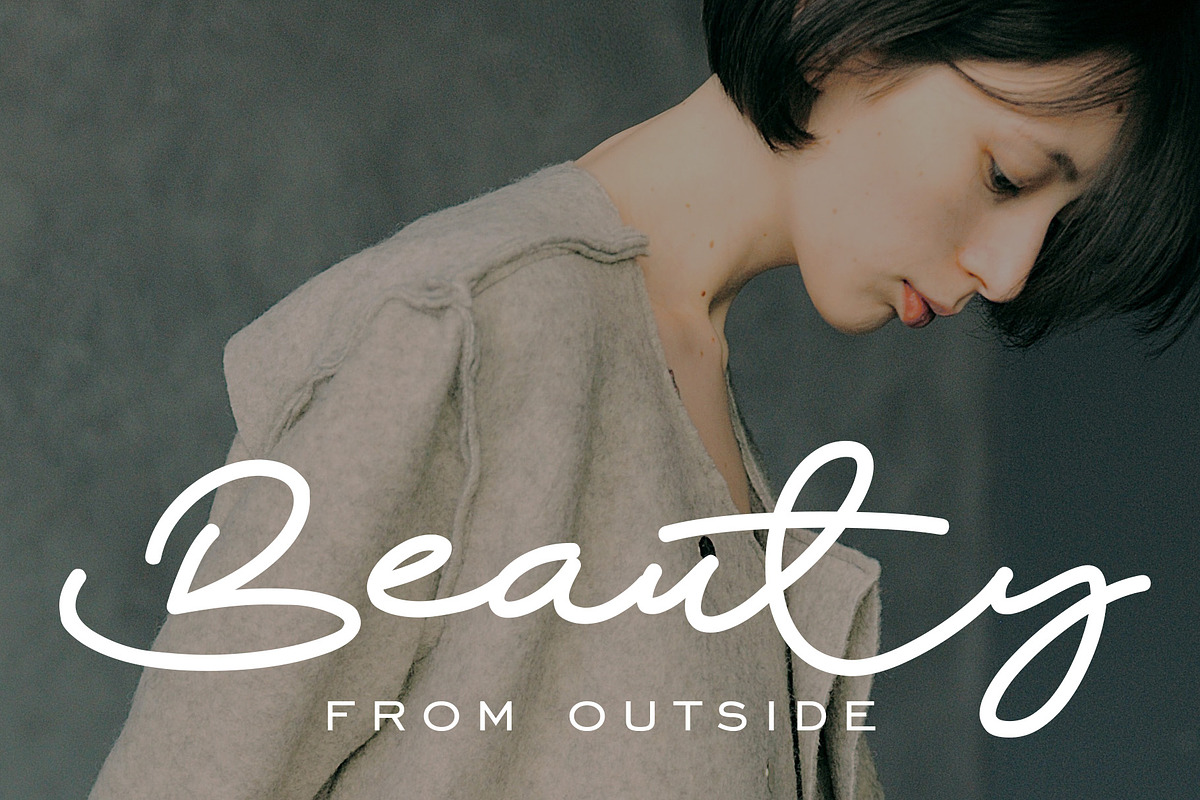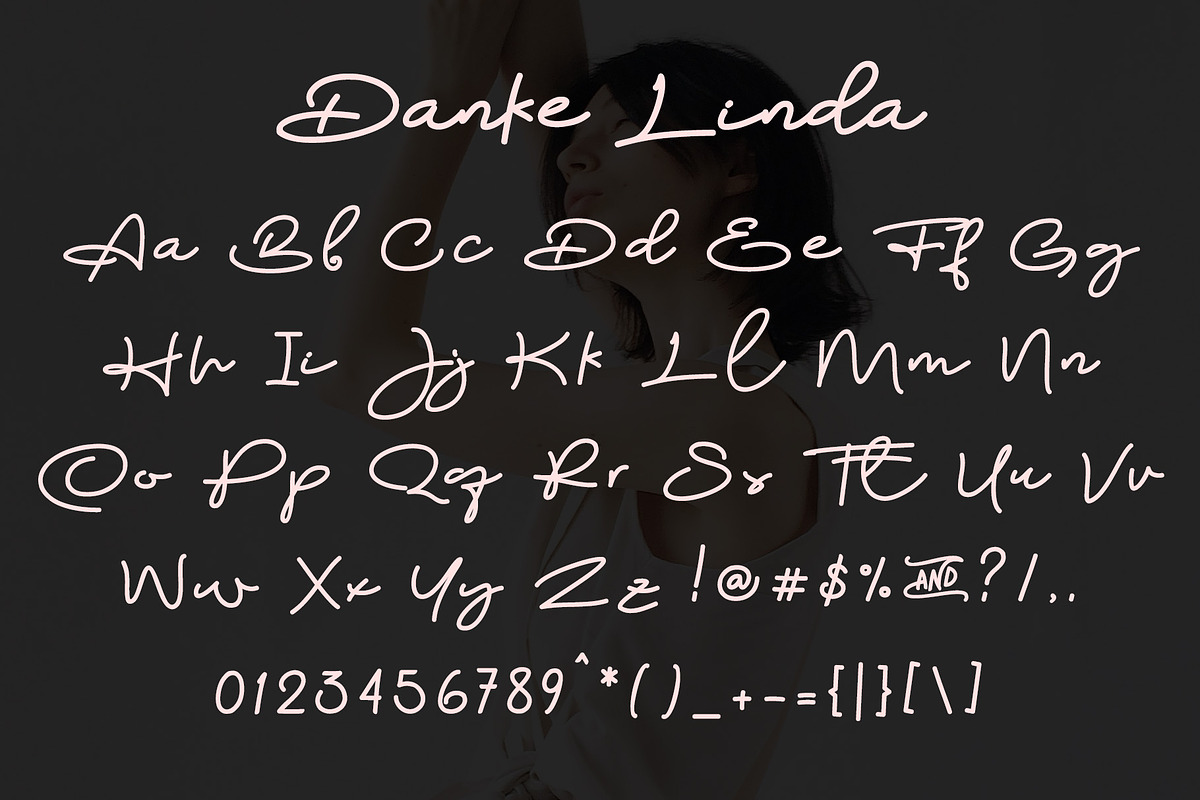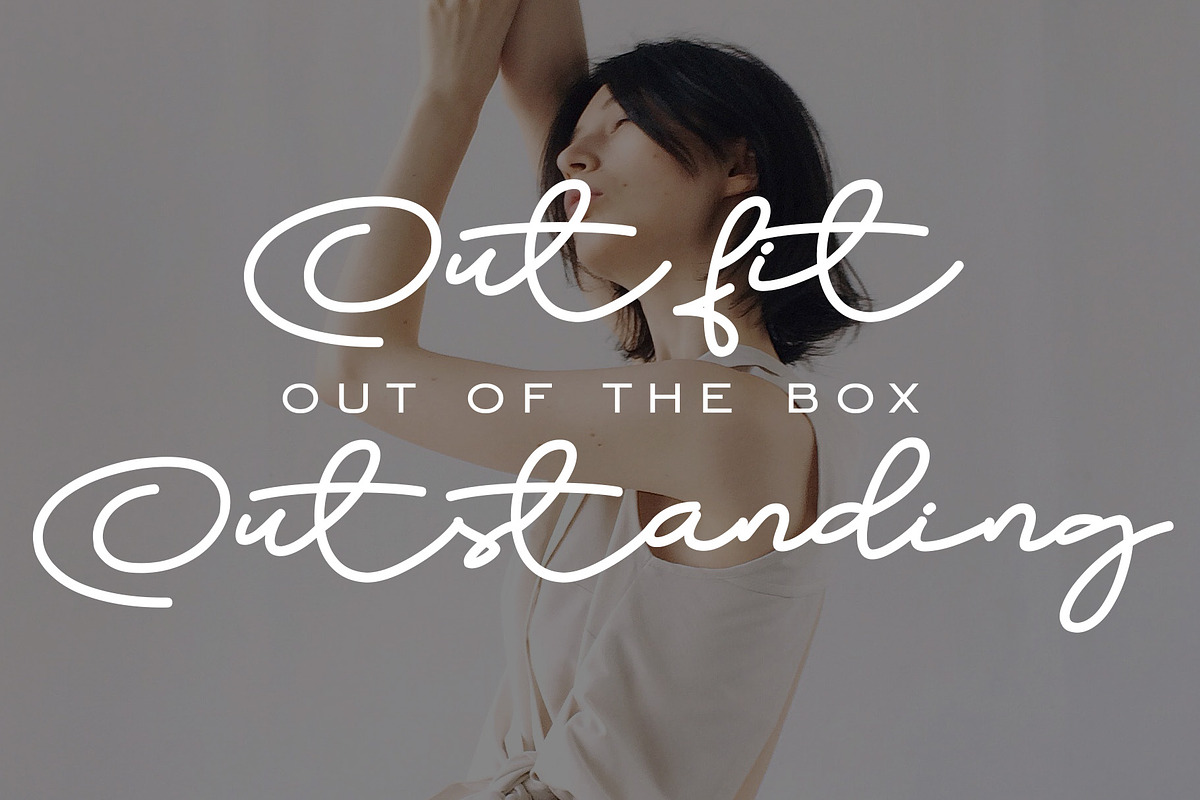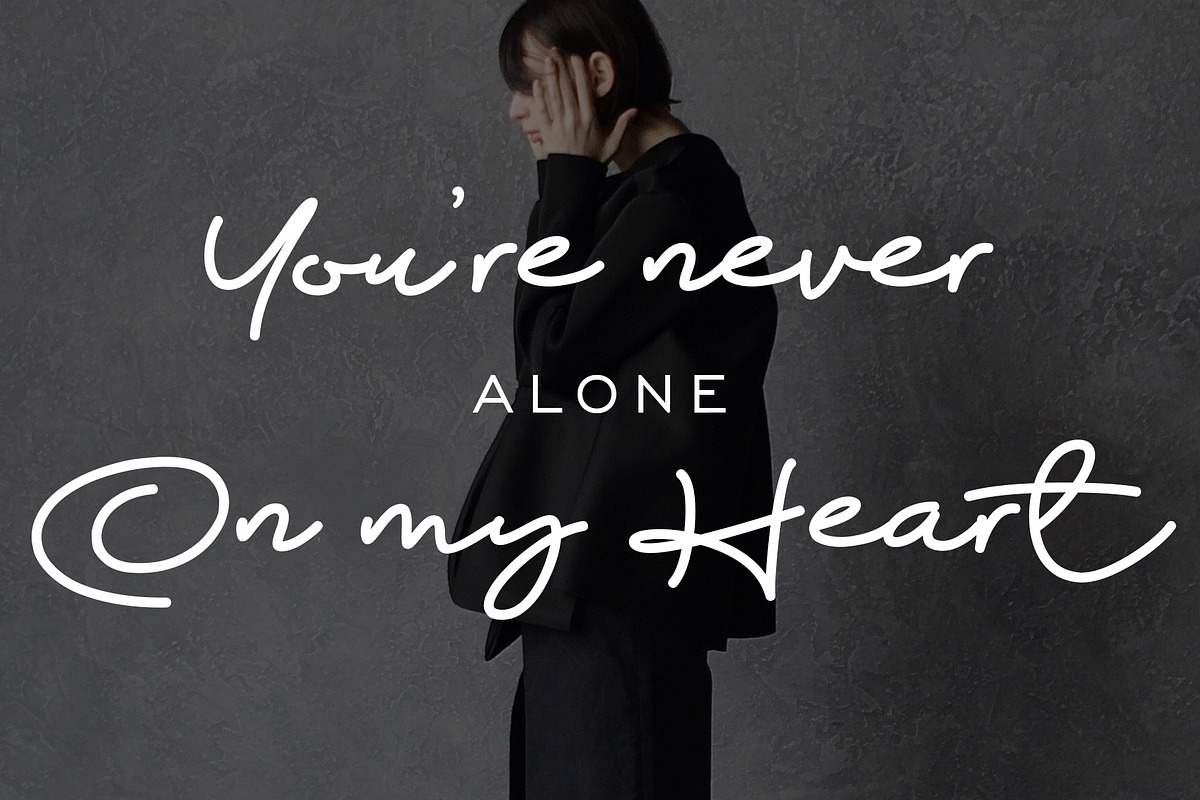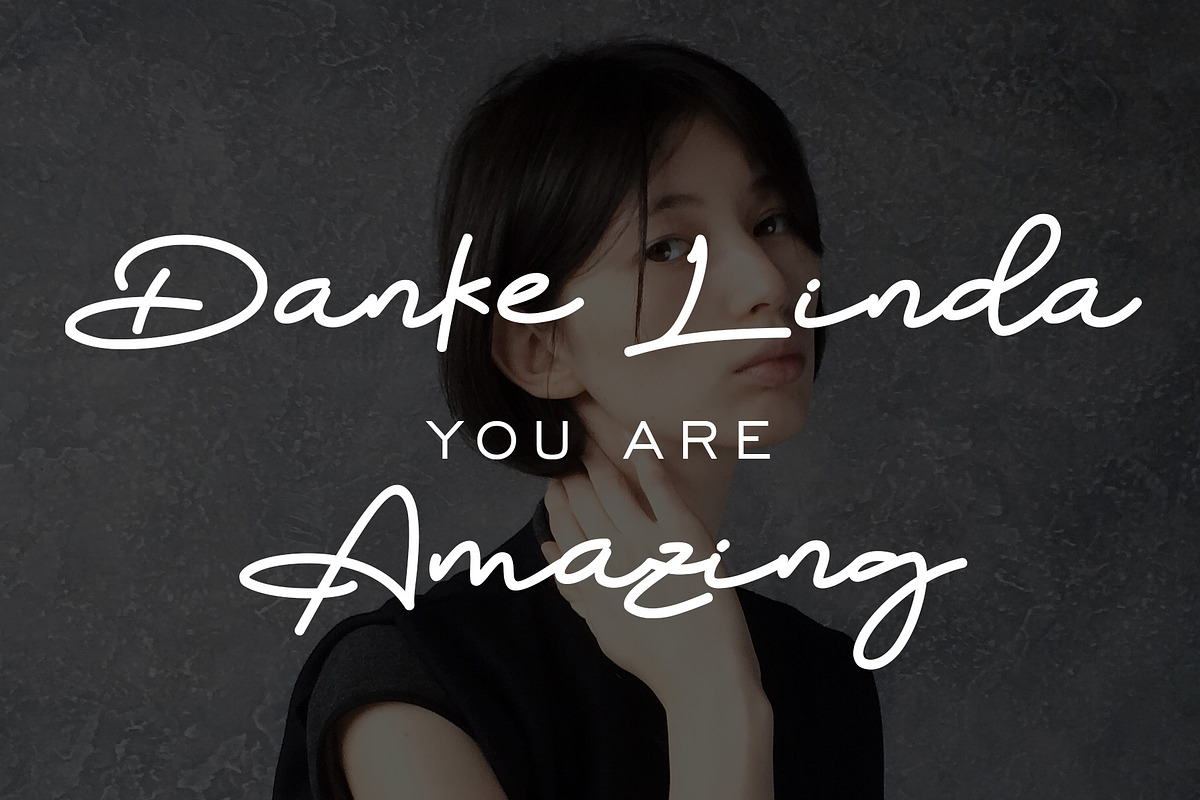
Danke Linda
Danke Linda is a font with awesome and classy taste, comes with natural touch, so much ligatures. We keep this font looks classy, readable, elegant, stylish, catchy and absolutly easy to use.
Danke Linda is the great choice for watermark on branding, design, wedding, photography, signature, logo design, album cover, business card, quotes, and many other design project.
This font is for those who want to show something smooth and modern. You may use this font if you want to attract modern buyers. The font design seems to show that you have a passion in the business and give your love to the products and services you are offered to customers. Because it is an eye-catching signature font, you can use it for a variety of purposes including wedding invitation, signature, logo, branding, poster, and many more.